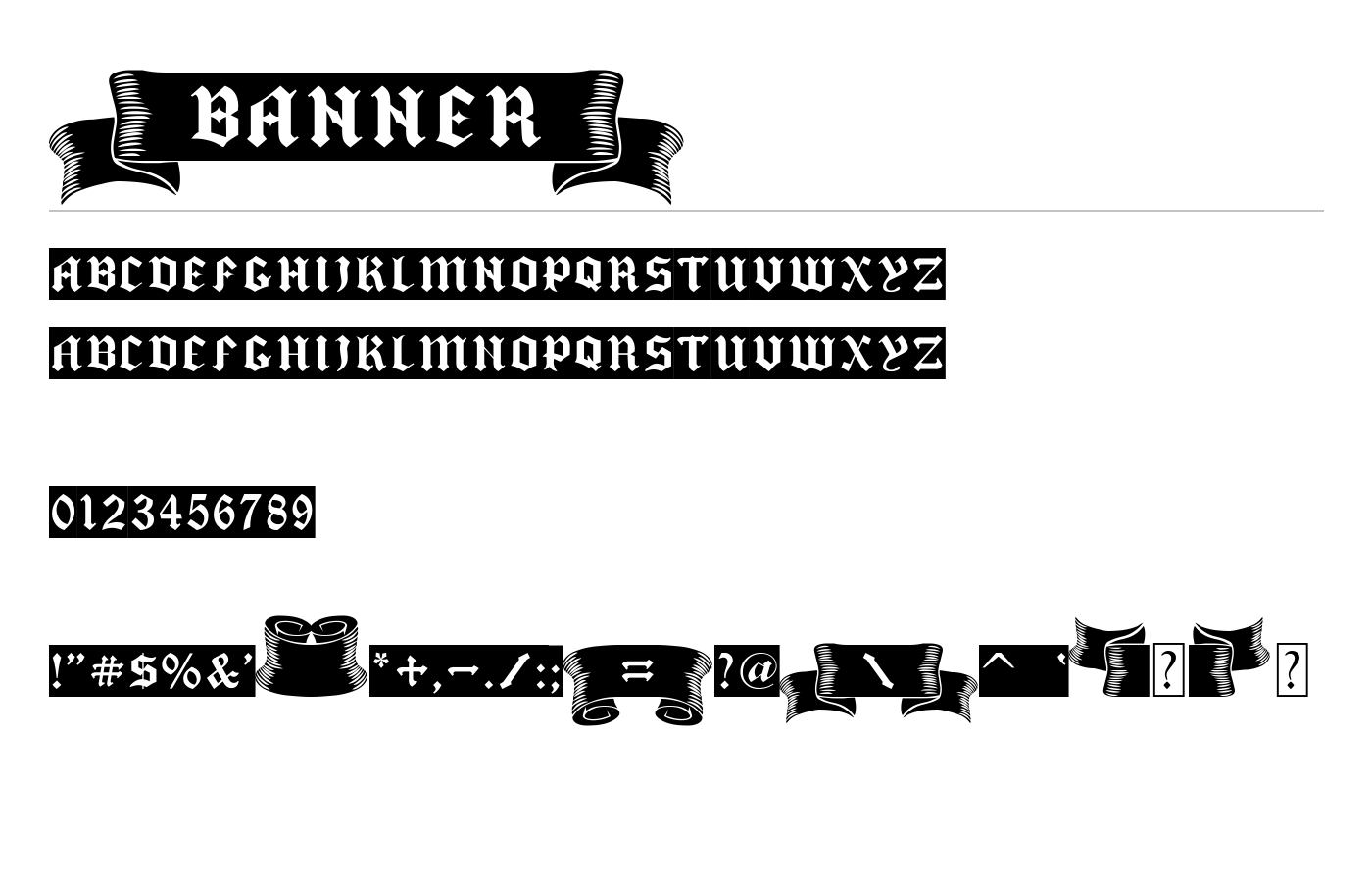
The BANNER font is a bold, decorative blackletter style with strong medieval gothic influences, featuring sharp, angular strokes and pronounced contrast between thick and thin lines. Its condensed letterforms and ornate details give it a dramatic, historical feel, making it ideal for vintage-themed designs, banners, and branding that seeks to convey tradition and strength. This font works best in headlines, logos, and posters where a striking, classic impression is desired.
[BANNER] Font